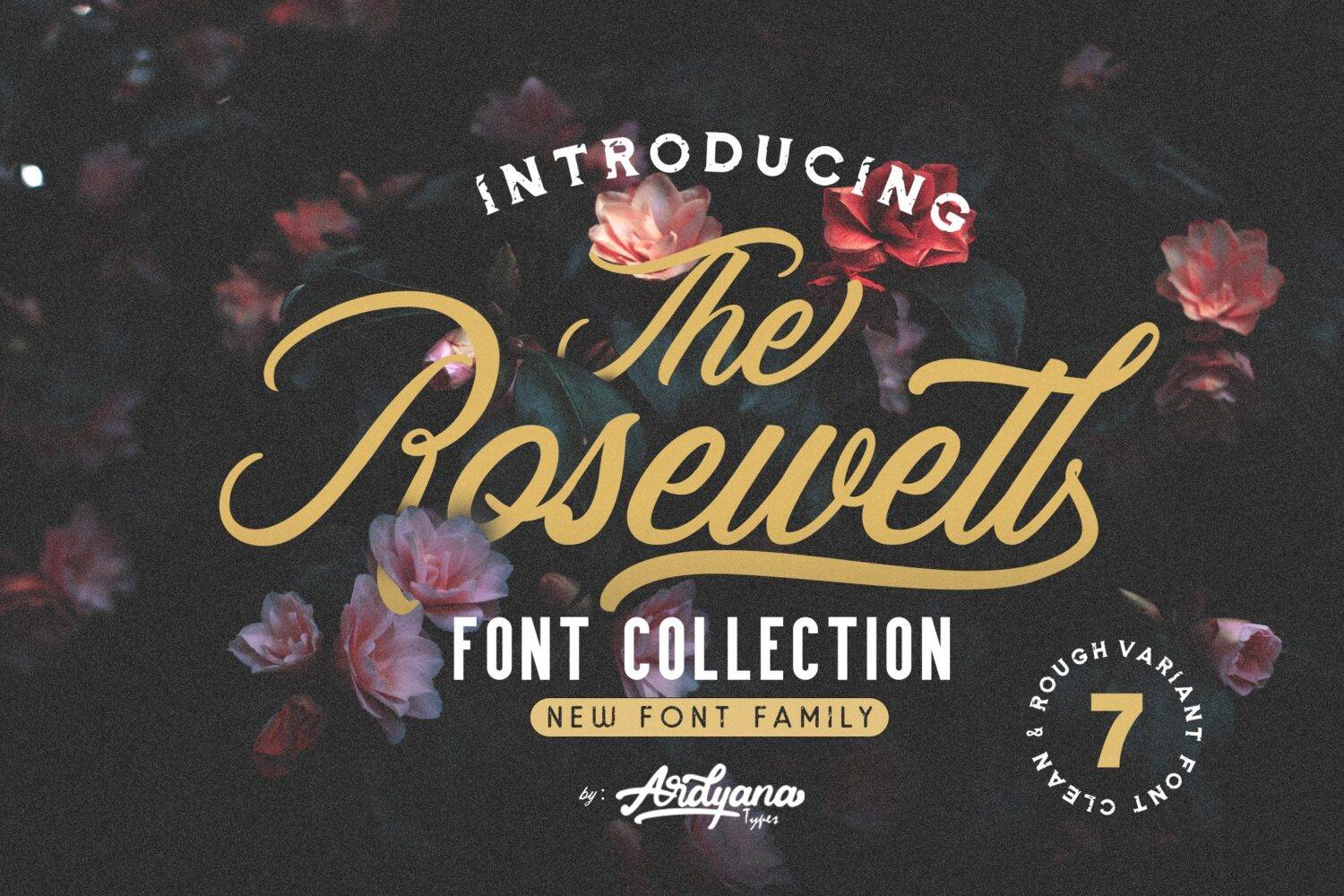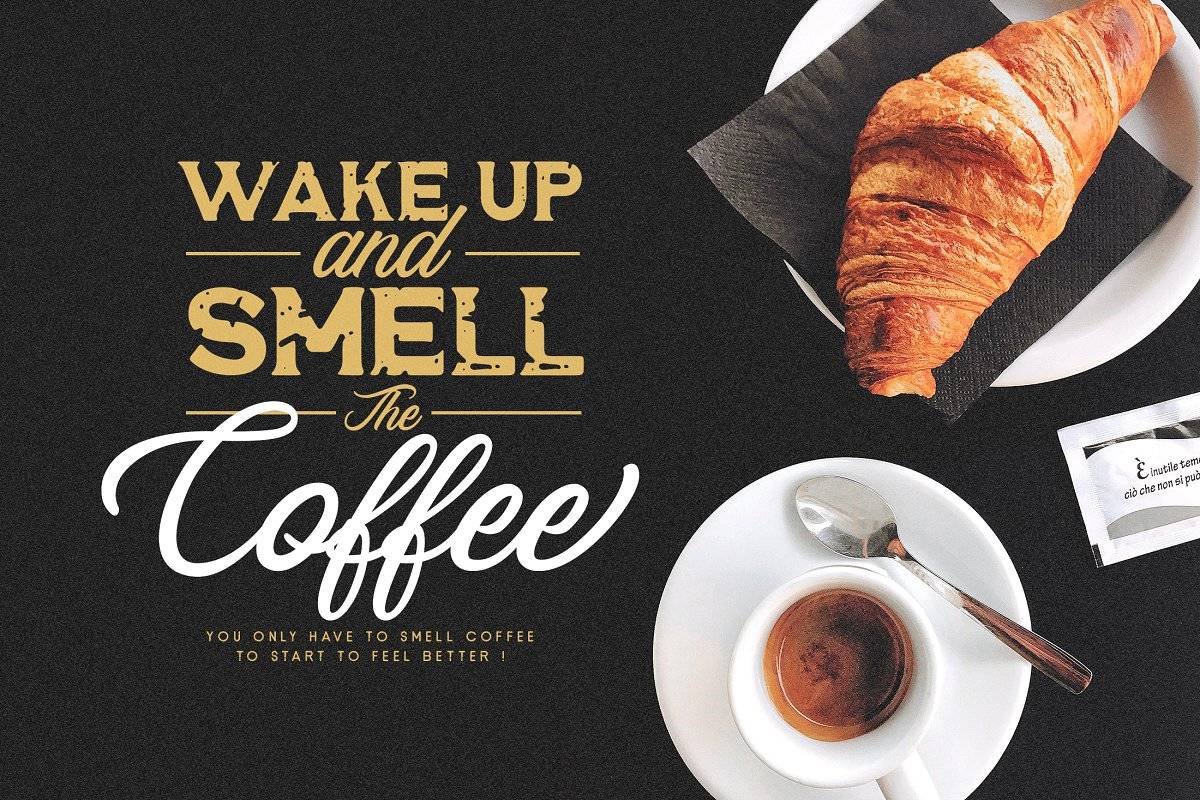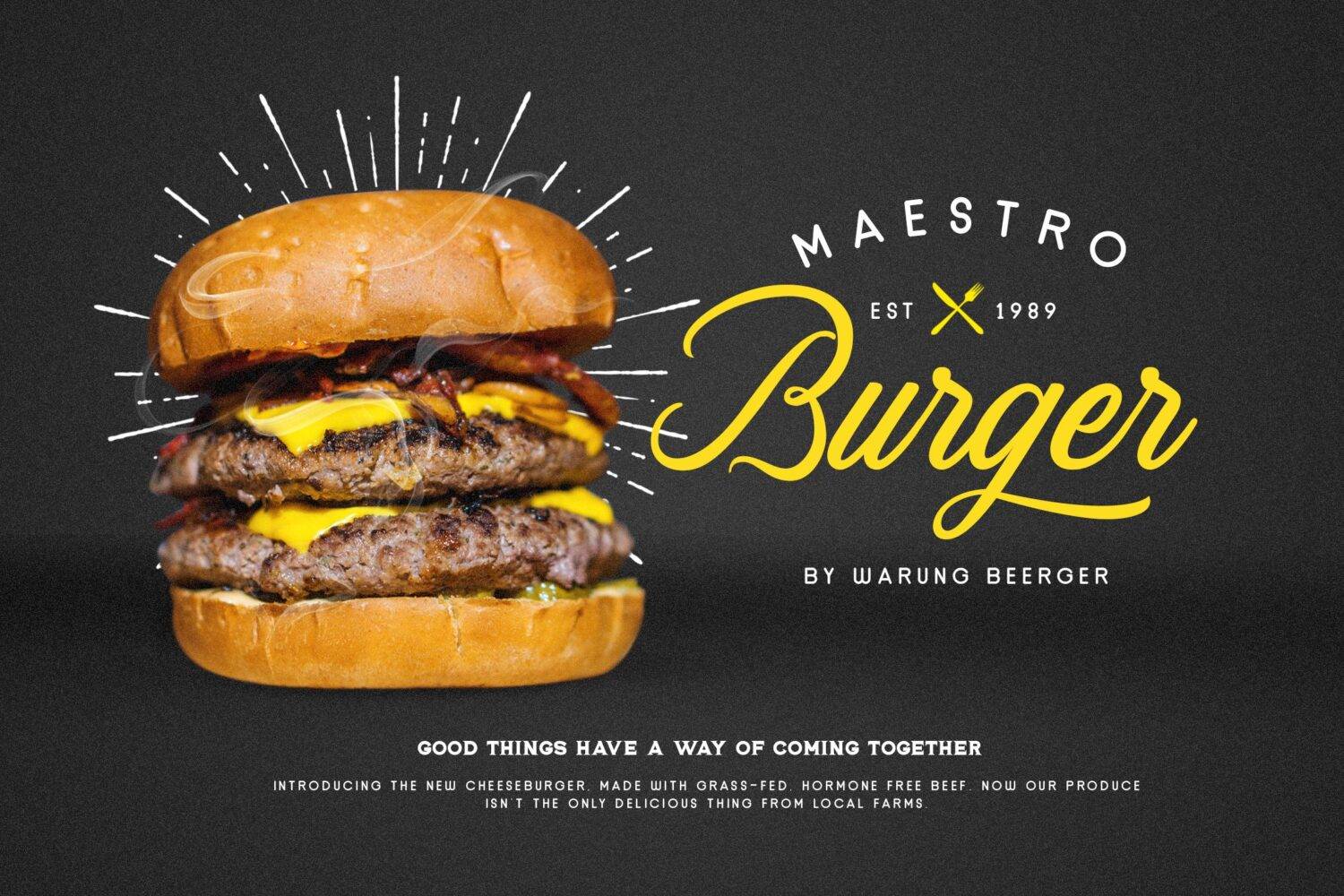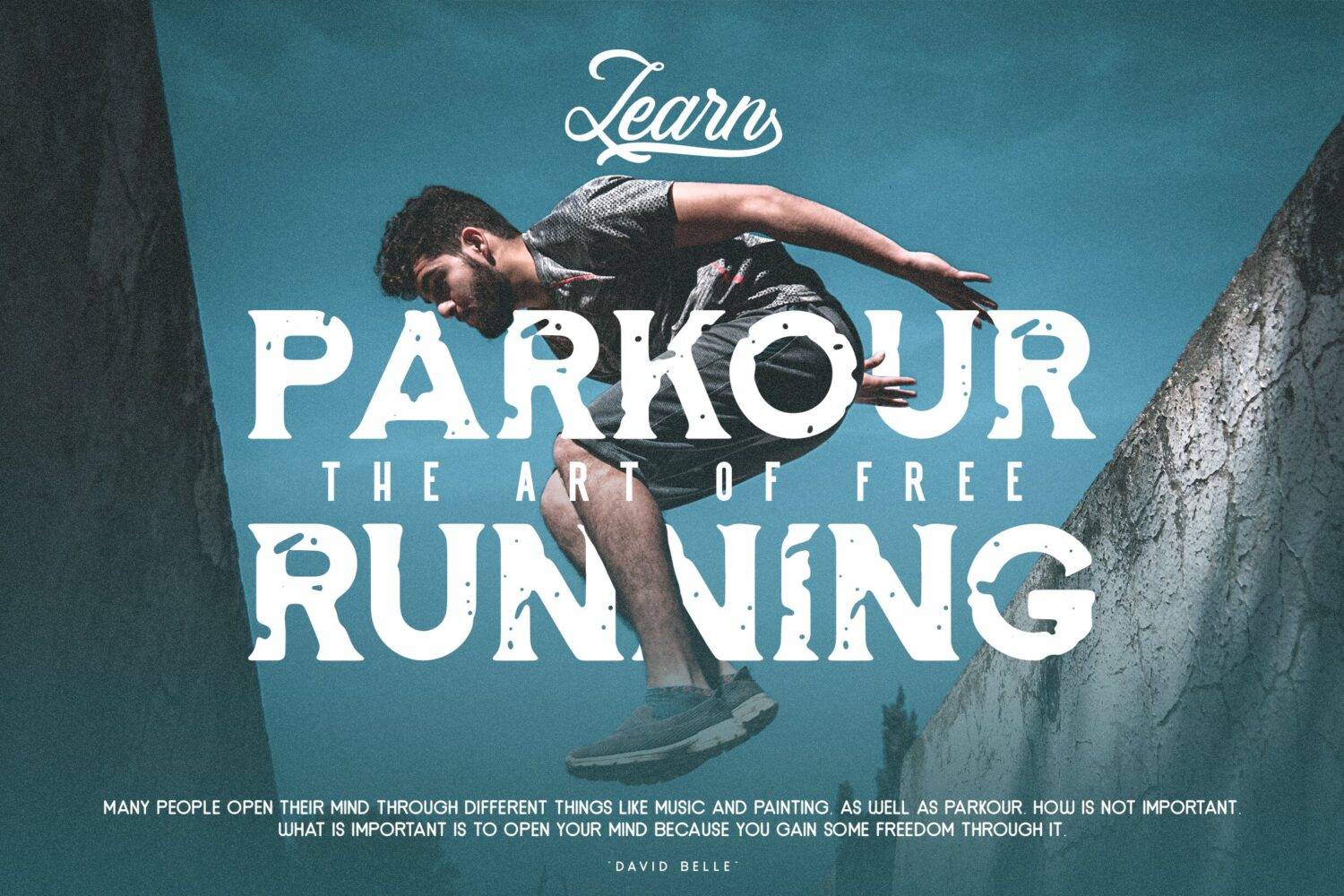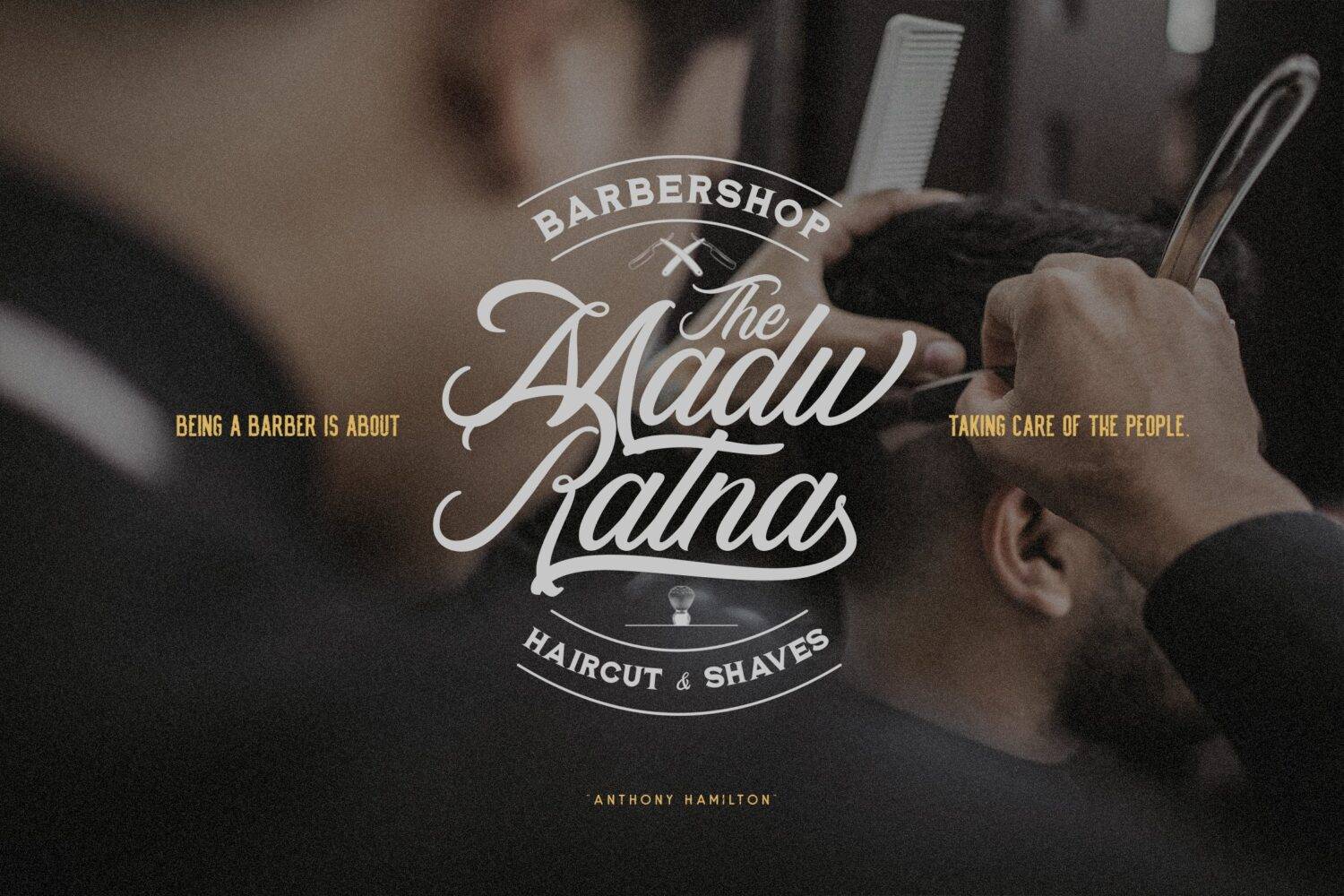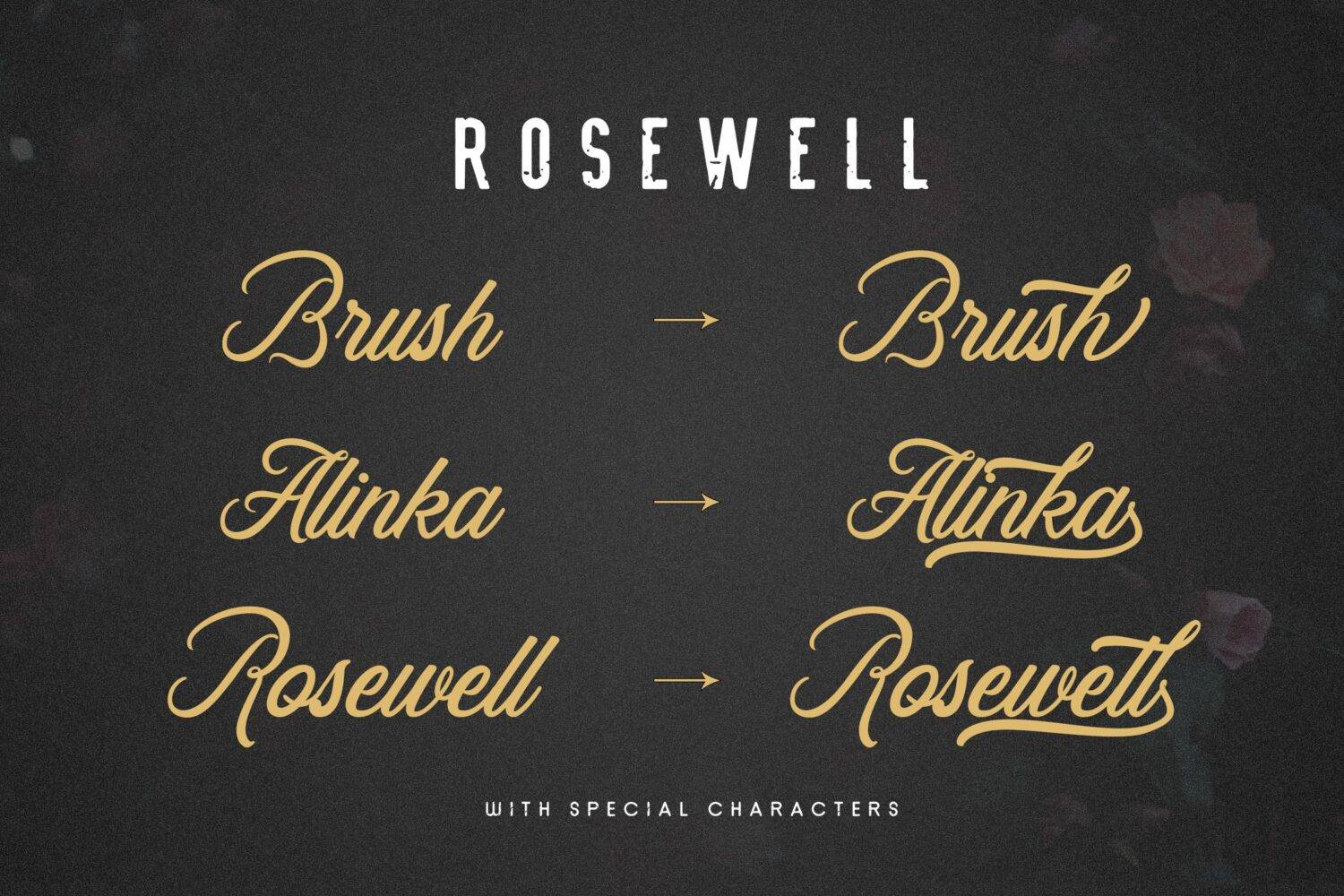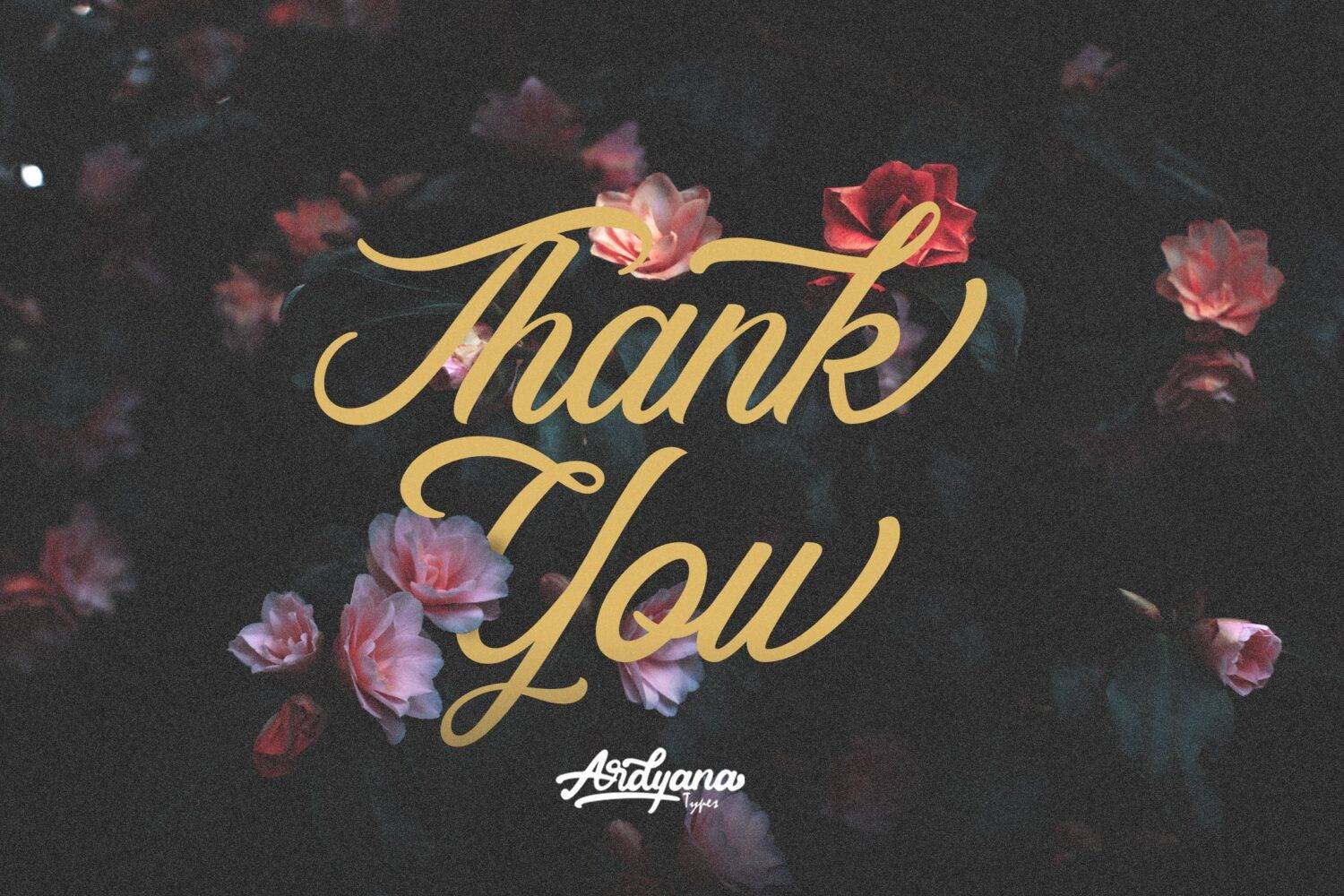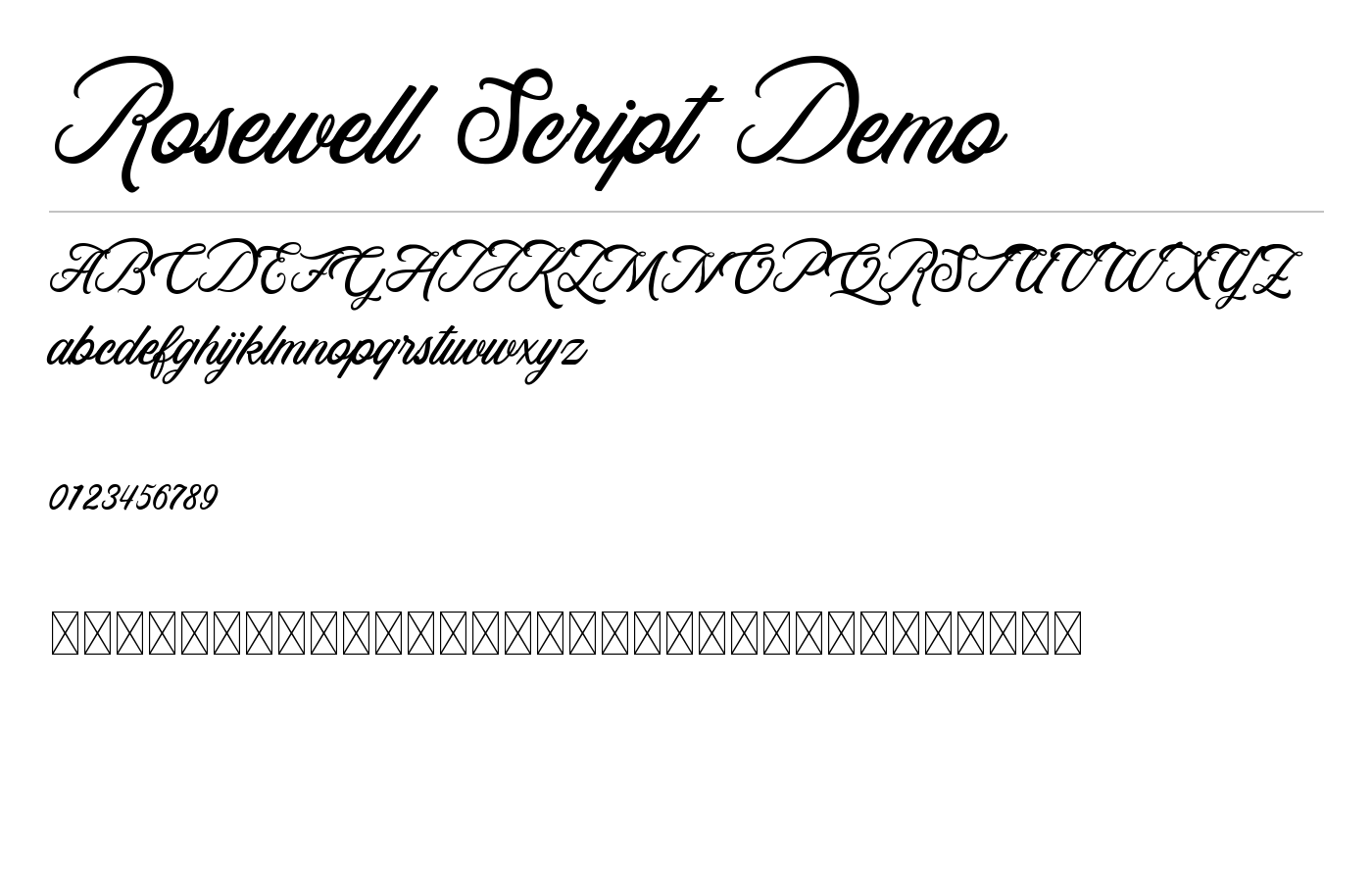
Rosewell Script Demo is an elegant, flowing script font with a graceful, handwritten feel. It features delicate, connected letterforms with fine strokes and gentle curves, perfect for adding a touch of sophistication and charm to invitations, branding, and decorative text. This font works beautifully in designs that aim to convey luxury, refinement, and personal style.
Rosewell Script Demo
About Rosewell Script Demo
| Font family | Rosewell Script Demo |
| Release date | 2019-03-10 |
| Designer | Ardyanatypes |